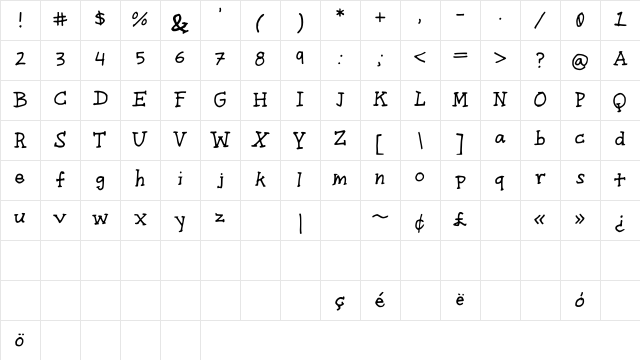
Complete getdown Medium glyph index. Displaying only characters natively supported by getdown Medium font.
getdown is a composed and adaptable typeface that performs quietly and consistently across a wide range of design contexts.